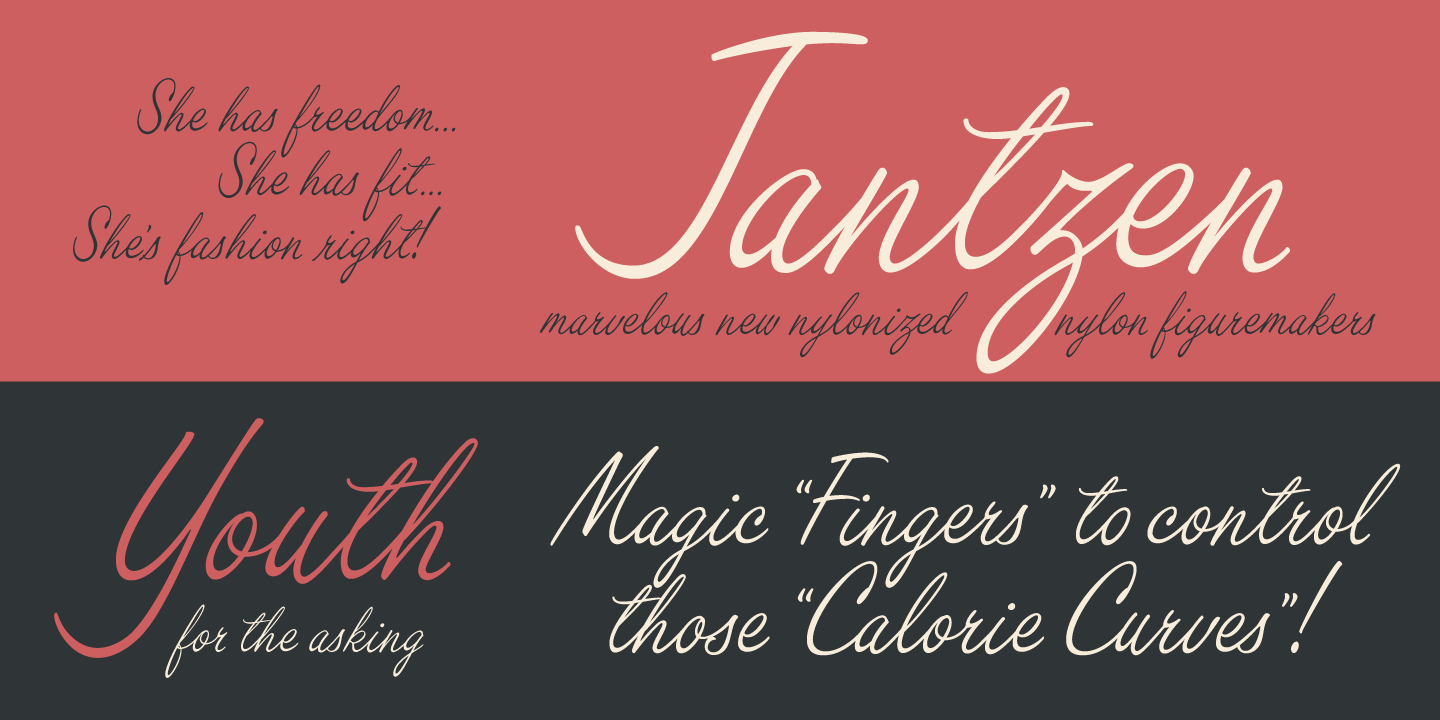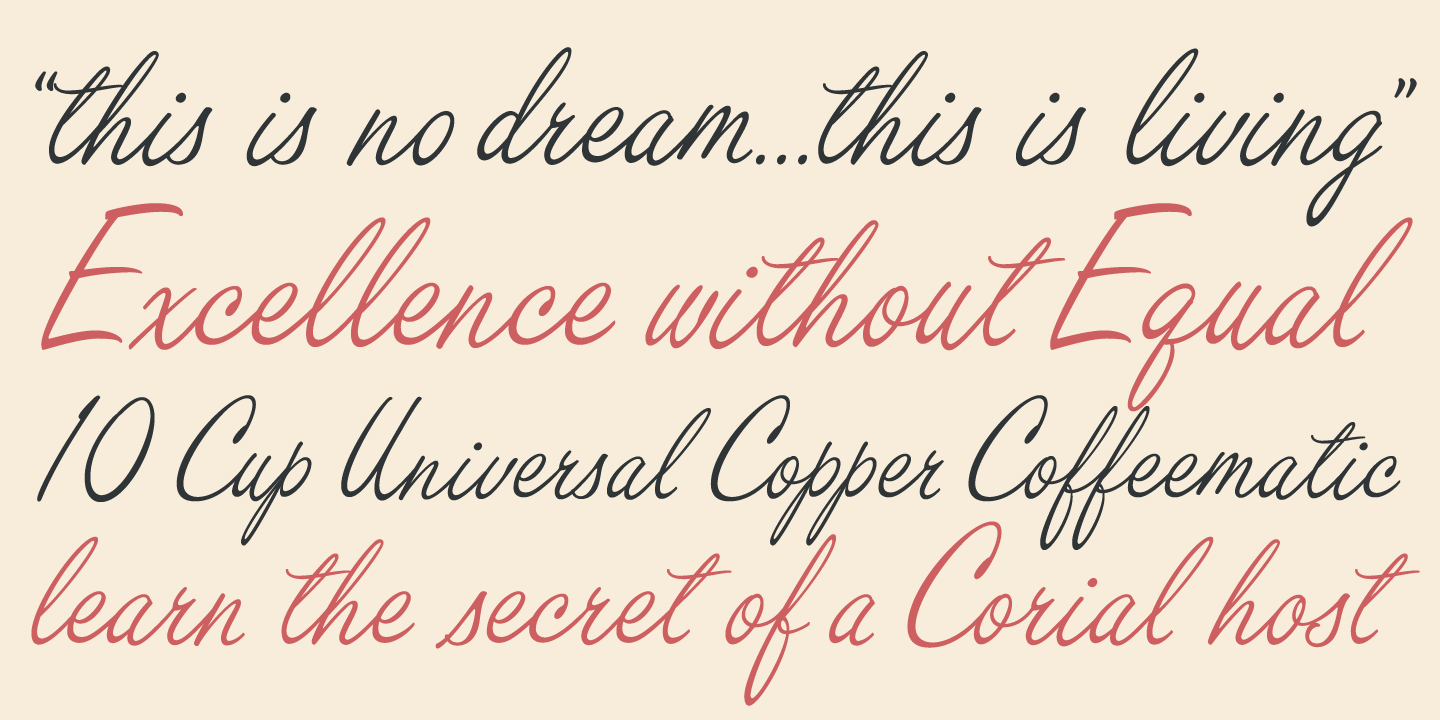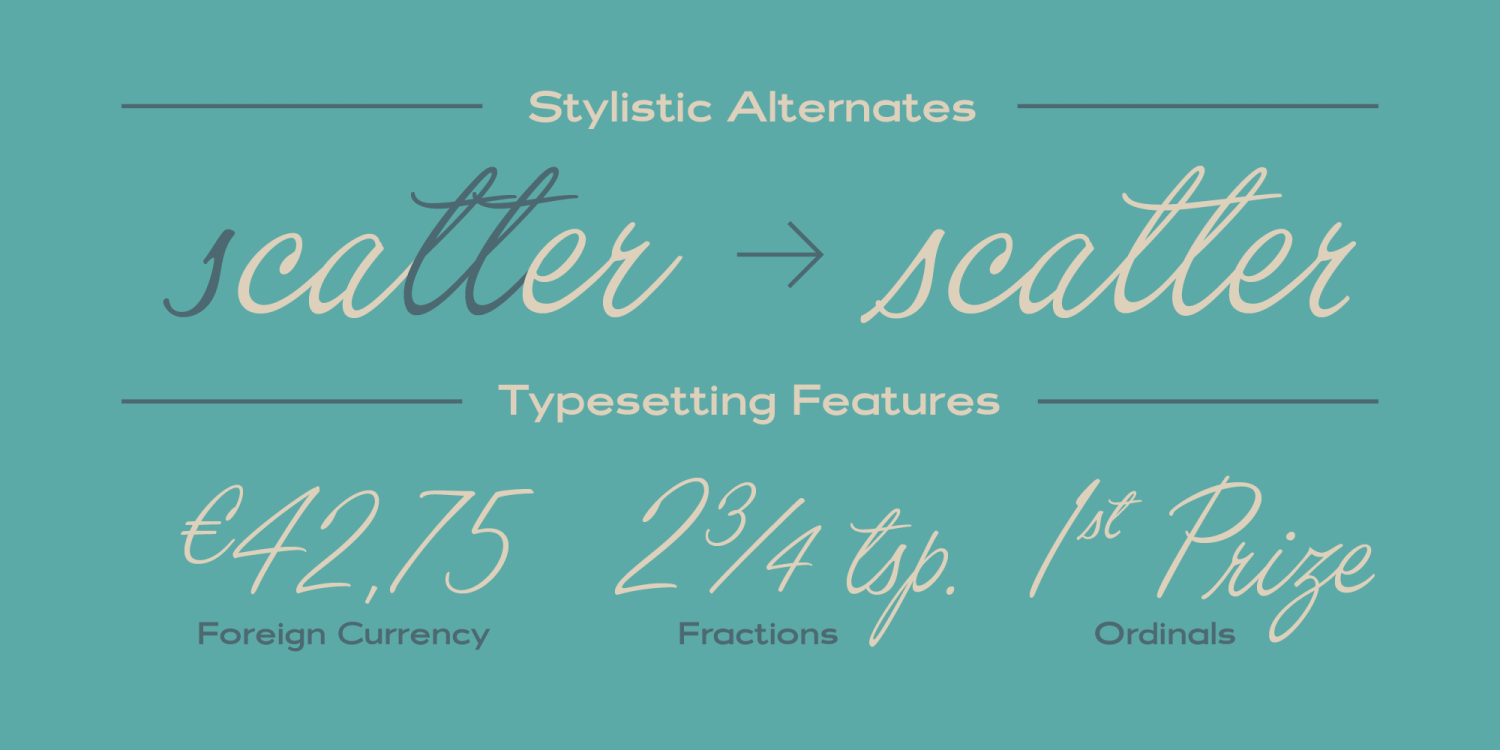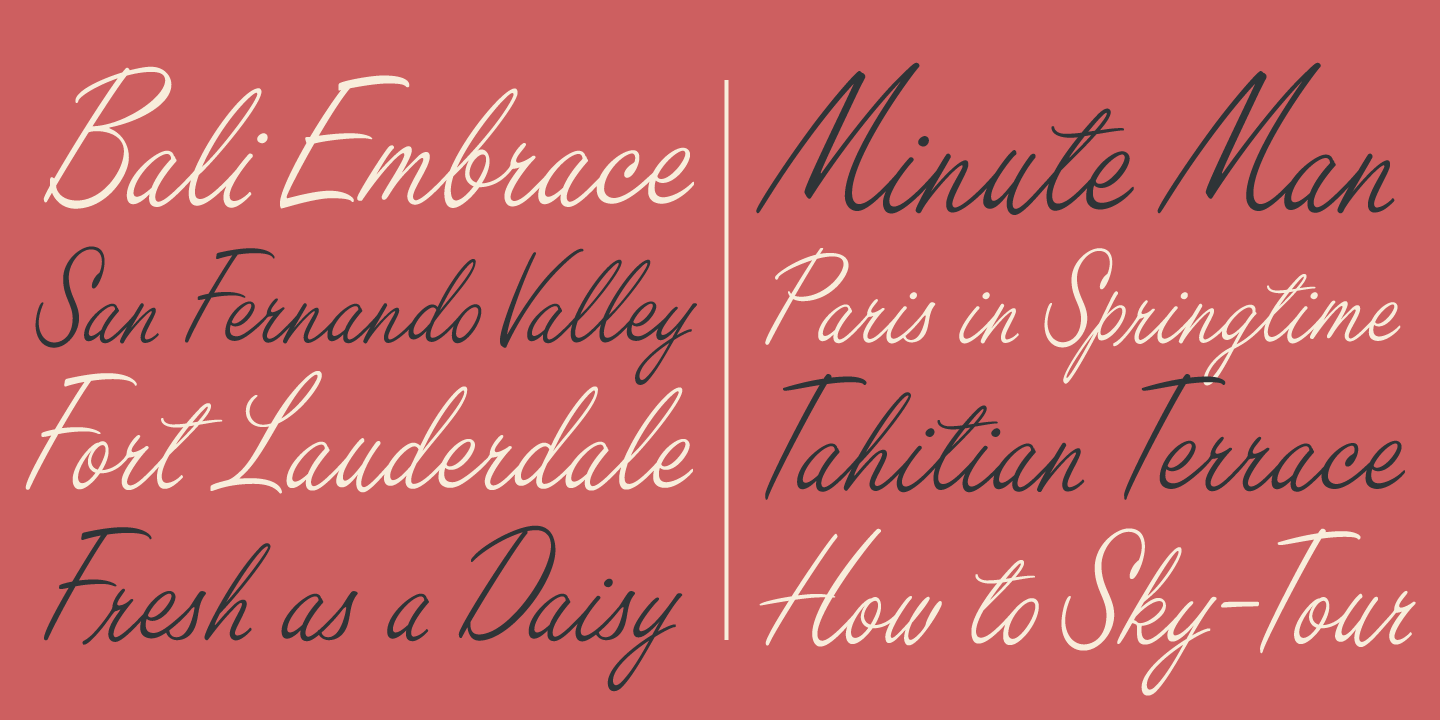
Filmotype Kinzie
Filmotype Kinzie was released by Filmotype in 1955s as an attractive informal casual pen-script, also known as a jewelers script based on its use in department store catalogs and luxury store signage.
Filmotype Kinzie was developed from the original font filmstrips and includes a full international character compliment, automatic fractionals, ordinals, and a very large set of alternate contextual and initial characters and ligatures to allow flawless connecting typesetting in dynamic OpenType format.